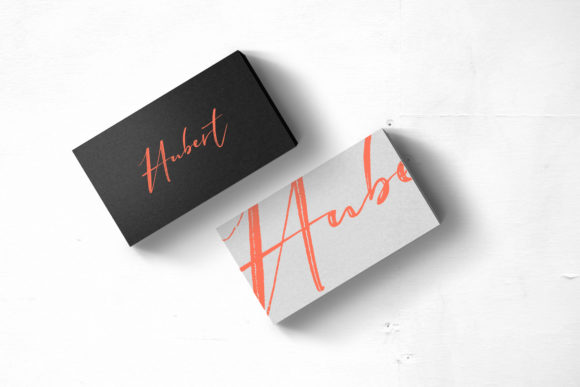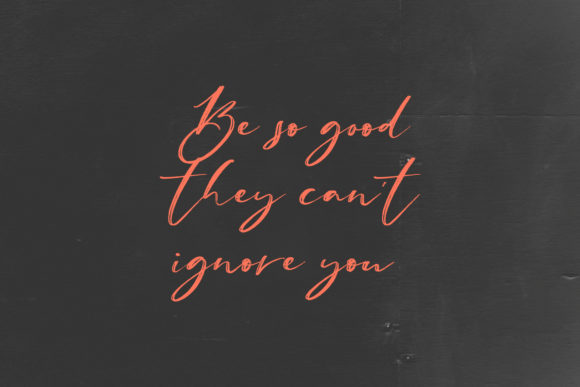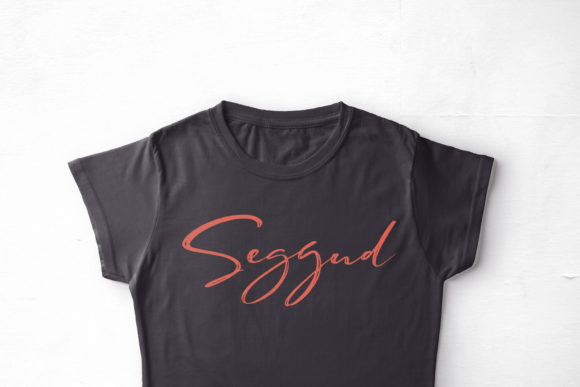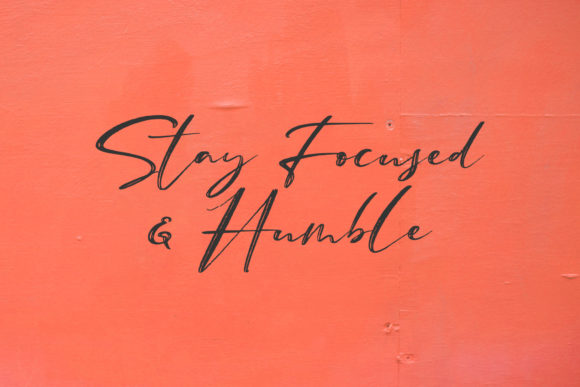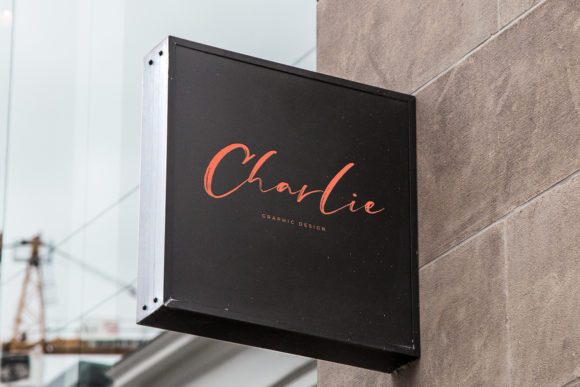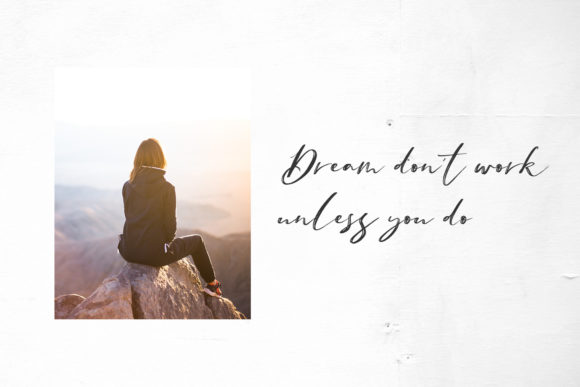
Introduction to Maffis Font Font
Fonts play a crucial role in design, and the Maffis Font font is a typeface that brings both character and versatility to any project. Whether you’re working on a branding project, a website, or a print design, the Maffis Font font offers a unique style that can elevate your work.
Maffis is a light and charming handwritten font with an incredibly stunning vibe.
Use it to add a touch of authenticity to any creative project .
Key Features of Maffis Font Font
Why Choose Maffis Font Font?
The Maffis Font font is more than just a typeface – it’s a design tool that helps you communicate your message with style and clarity. Its unique character set and versatile design make it suitable for a wide range of applications, from elegant invitations to bold headlines.
With its carefully crafted letterforms and balanced proportions, the Maffis Font font ensures readability and visual appeal across all mediums.
What makes Maffis Font font special?
The Maffis Font font stands out with its unique design, exceptional readability, and versatility across various design applications.